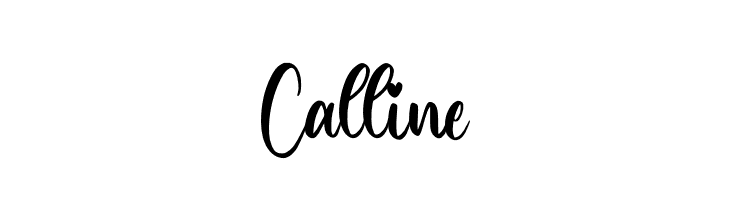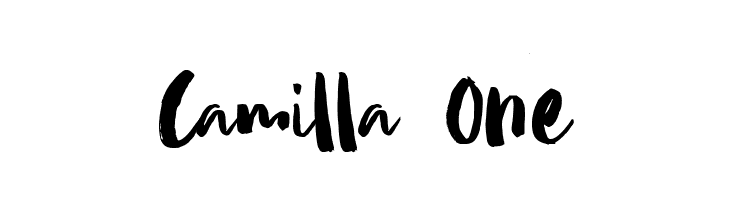
A graceful, handwritten script font with flowing, connected strokes.
A playful and elegant script font with smooth, flowing strokes.
A geometric, futuristic font with a technical and structured design.
A graceful and flowing script font with elegant curves and loops.
A playful handwritten font with a casual and friendly style.
A playful, bone-themed decorative font perfect for creative projects.
A bold, flowing script font with a playful and elegant style.
A bold, brush-stroke font with an energetic and artistic style.
A bold, playful font with a unique striped pattern and rounded characters.
A classic serif font with bold strokes and high contrast, exuding sophistication.
A bold, oblique font with a modern, dynamic style.
A bold, distressed font with a vintage, grunge texture.
A bold, distressed font with a vintage, grunge aesthetic.
An elegant, flowing script font with bold, cursive letterforms and decorative flourishes.
A bold, distressed font with a vintage, rugged appearance.
A playful, hand-drawn font with an organic and casual style.
A modern, geometric sans-serif font with clean lines and uniform strokes.
A bold, modern sans-serif font with geometric influences and high legibility.
A bold, italicized font with a modern and sleek design.
A modern, sleek italic font with clean lines and balanced characters.
A clean, modern sans-serif font with a light weight and minimalistic design.
A sleek, modern, light italic font with smooth curves and consistent stroke width.
A playful, casual handwritten font with smooth curves and a slightly slanted style.
A playful, decorative font with heart motifs and bold, whimsical characters.
A playful, heart-themed italic font with bold, decorative letterforms.
A bold, distressed font with a grunge, urban street art vibe.
An ornate and decorative script font with elaborate flourishes.
A graceful, cursive script font with a natural, handwritten style.
A bold, decorative font with intricate patterns and playful details.
A bold, serif font with dramatic strokes and high contrast, ideal for impactful headlines.